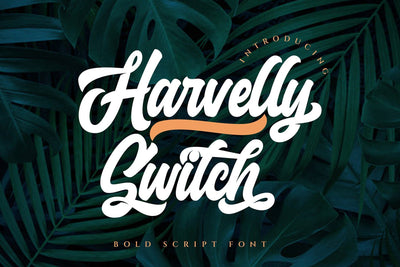
Haverlly Switch - Bold Script Font
Haverlly Switch Inspired by Modern Vintage & Retro style and combination with old american traditional style.
Haverlly Switch allowing you to create hand lettering is an instant and a super handy set of bonus Swash. Ideal for logos, handwritten quotes, product packaging, header, poster, merchandise, social media & greeting cards.